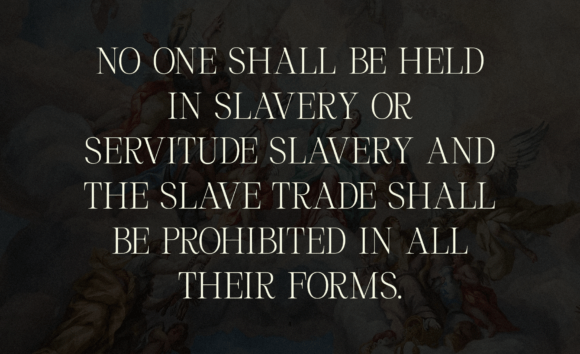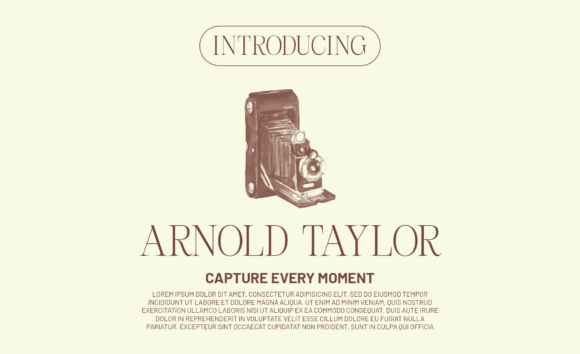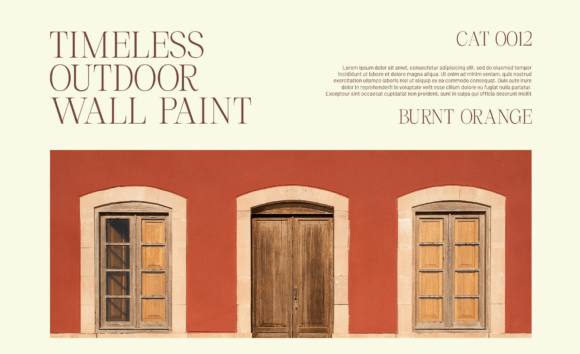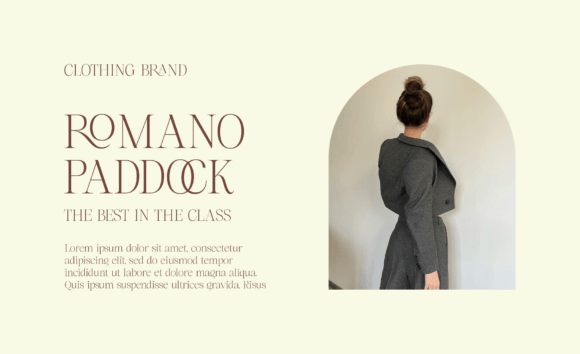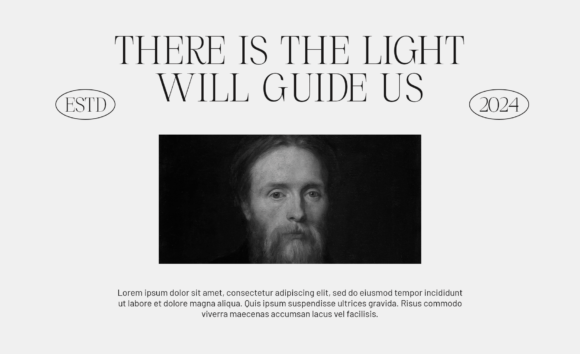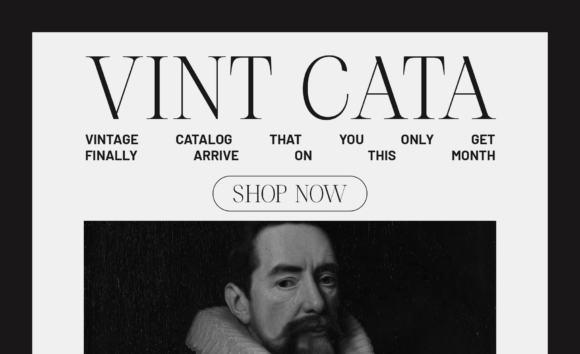
Introduction to Norigh Font
Introducing New Font The **Norigh** font is an elegant serif typeface designed to evoke a sense of luxury and minimalist sophistication.
Its refined, clean lines create a polished appearance, balancing grace and subtlety With a touch of modernity, Norigh is ideal for high-end branding, editorial design, and any creative project where elegance is paramount.
Key Features of Norigh Font
Why Choose Norigh Font?